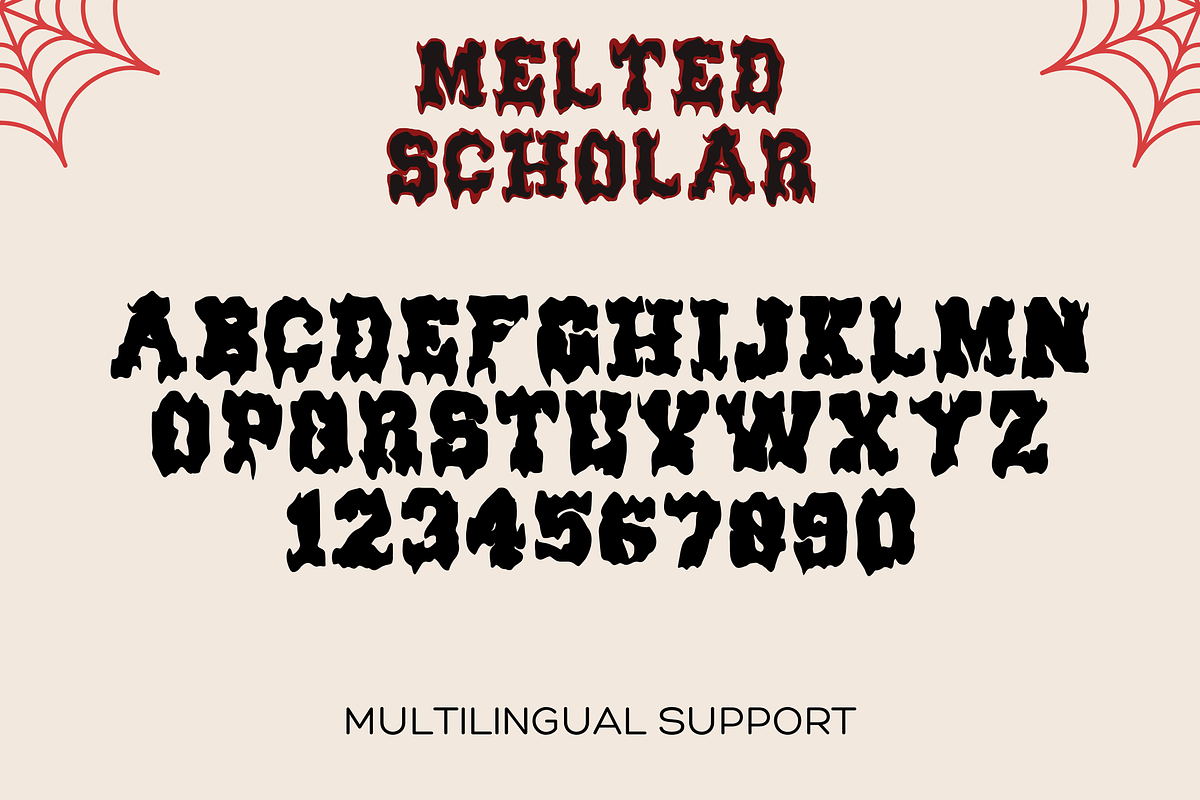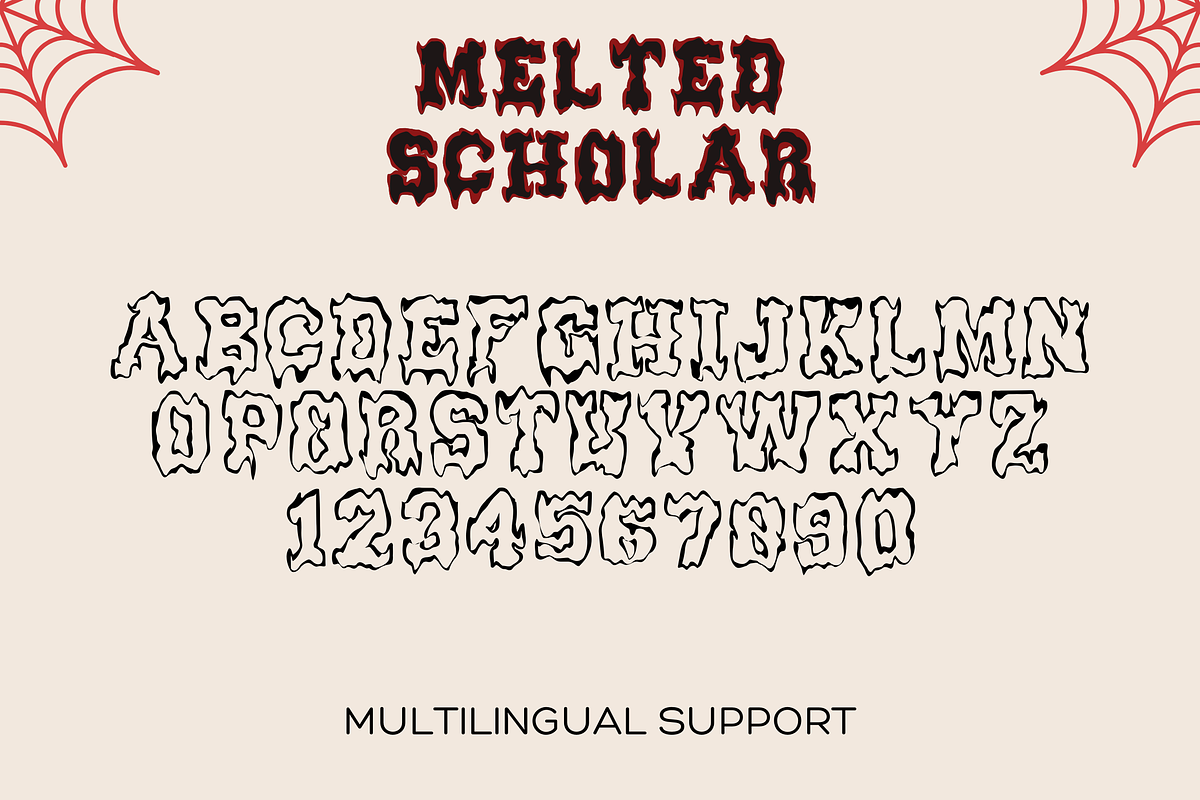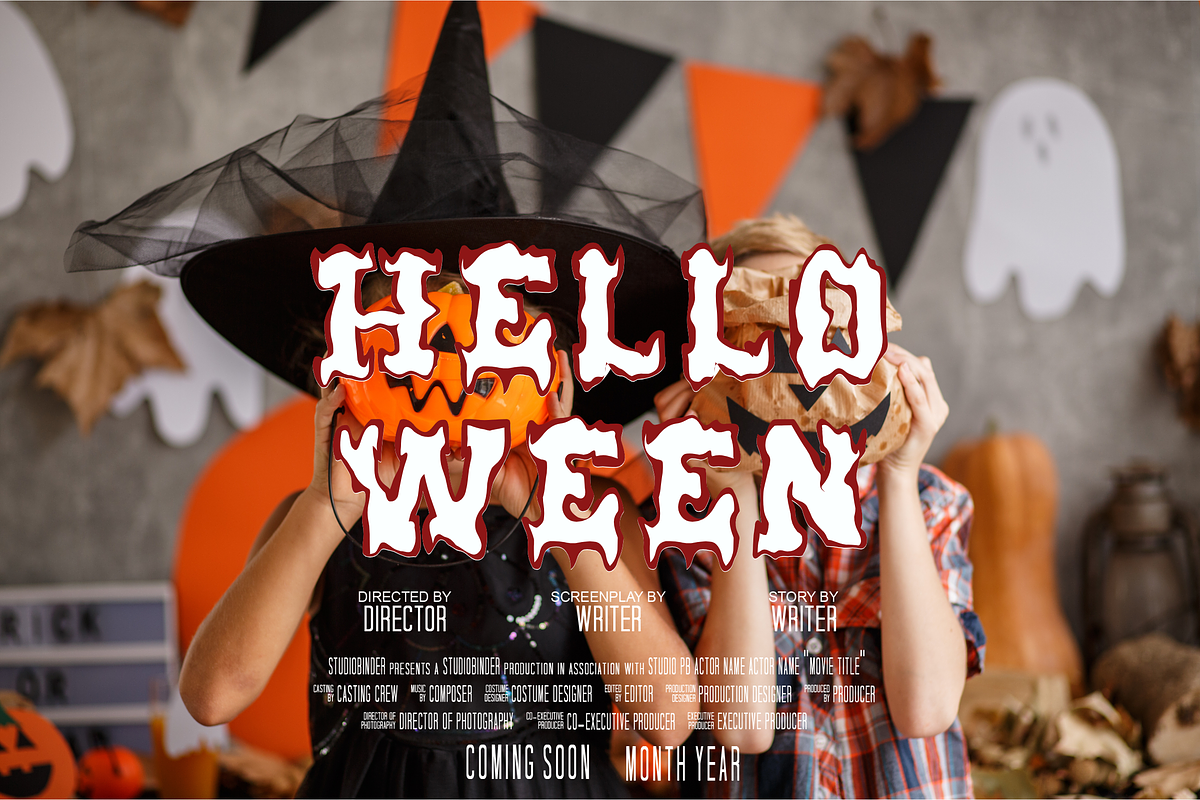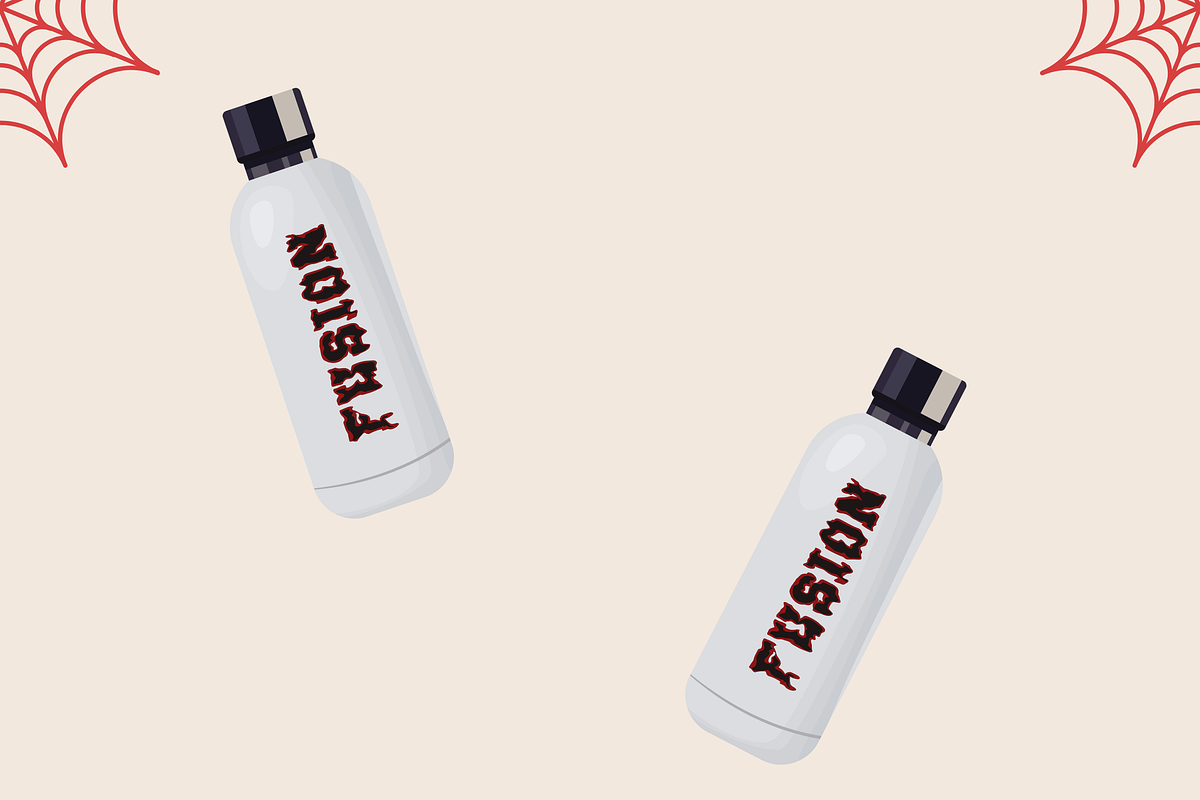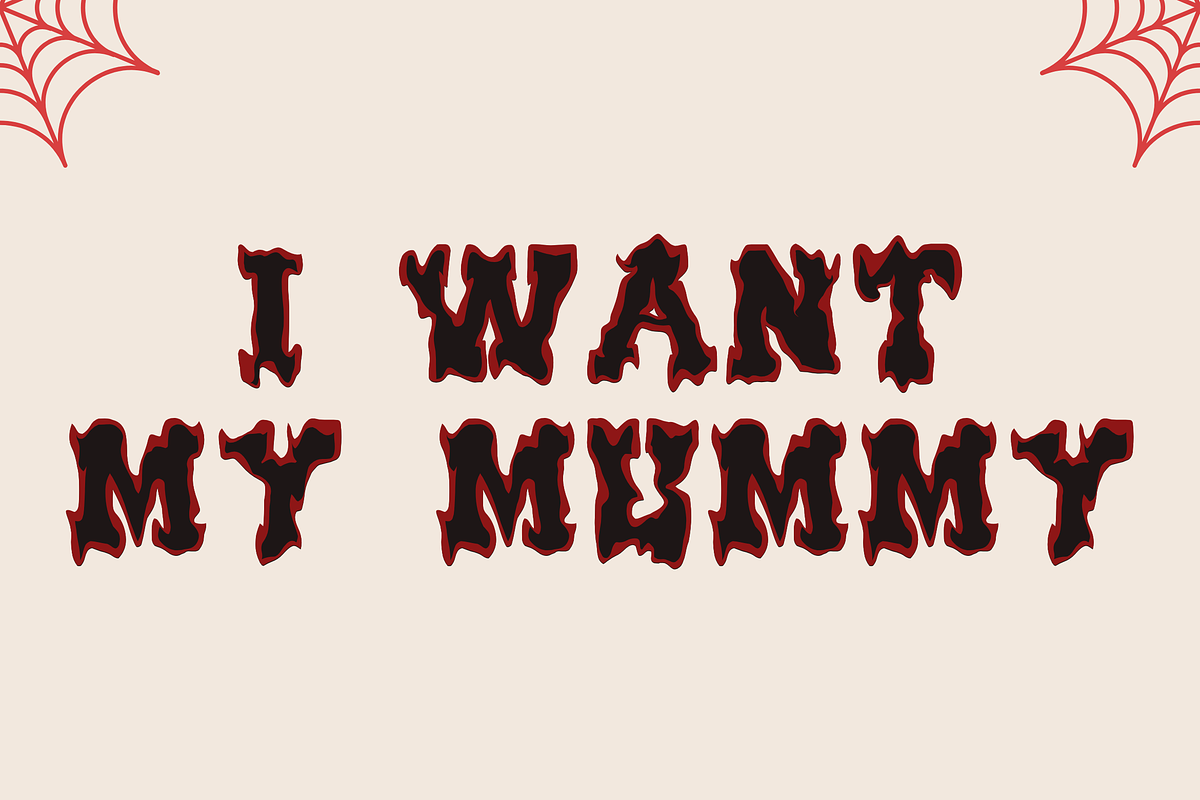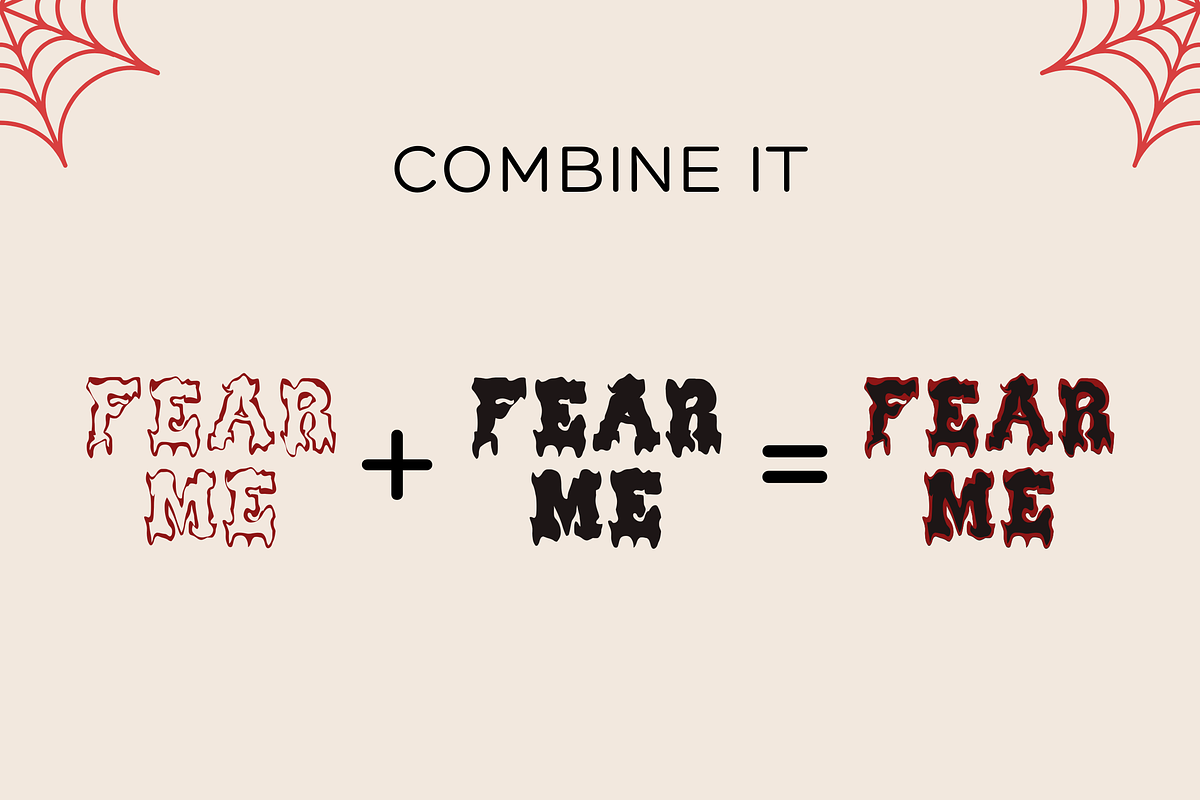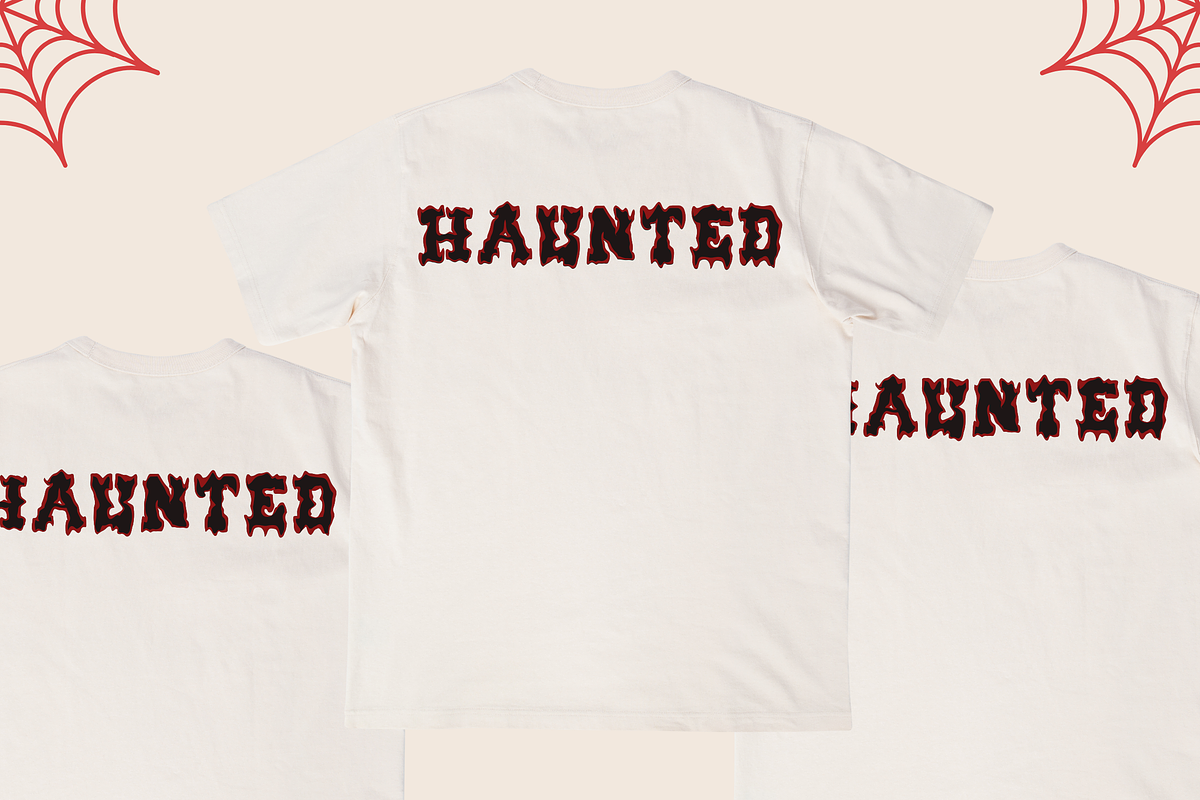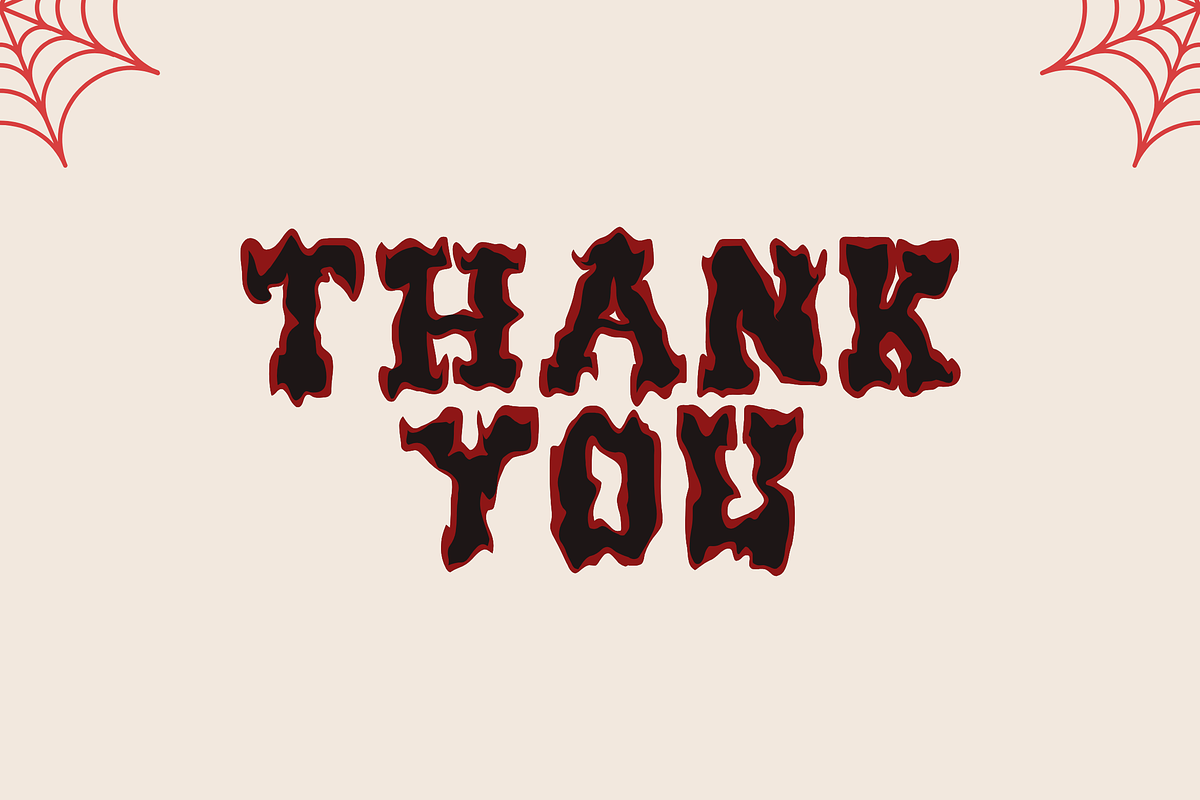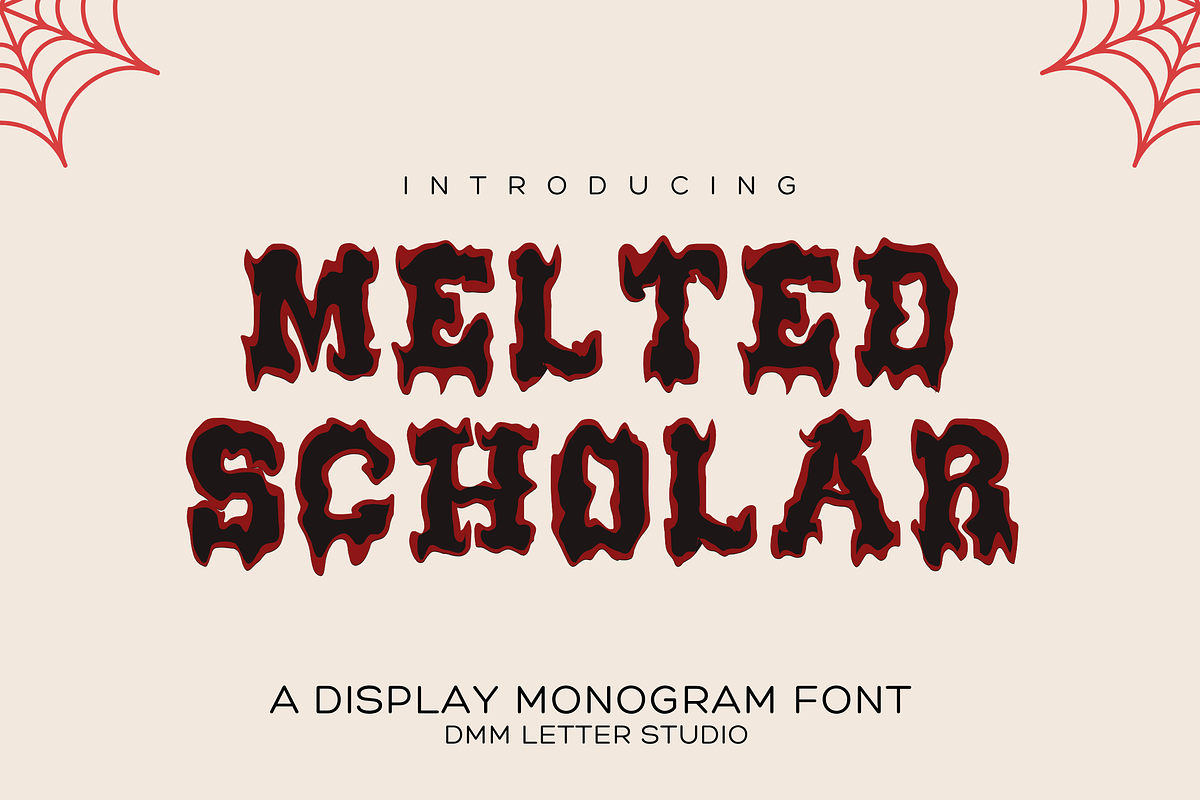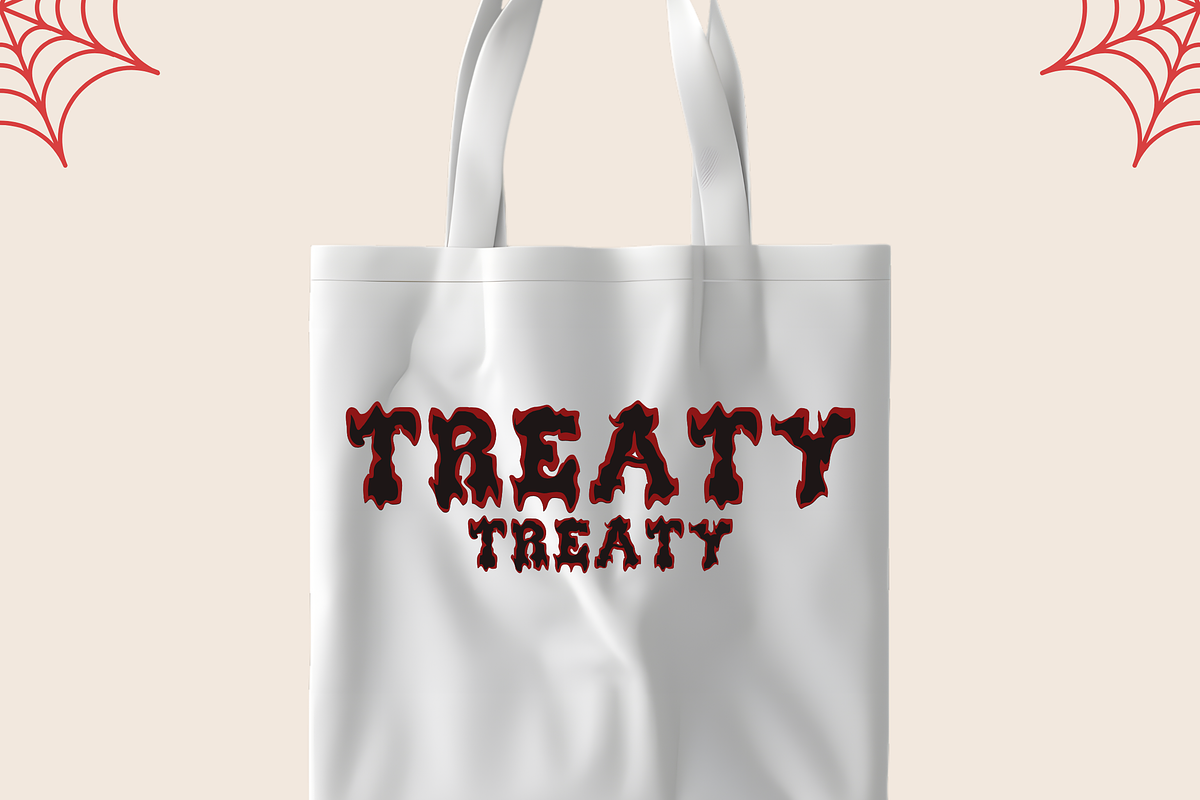
Melted Scholar
Meet Melted Scholar, the Display Font
Melted Scholar is a bold collegiate display font with a dramatic melting twist. It combines strong varsity block structure with dripping edges that feel playful, spooky, and full of character. The foundation stays solid and readable, while the melt details add movement and personality. Use Melted Scholar for Halloween merch, school-themed graphics, stickers, posters, slime concepts, party invites, and bold social content. As a result, your typography feels powerful, fun, and impossible to ignore.
Why Melted Scholar sells
Fast layouts with the Melted Scholar Font
Start with short, bold phrases to highlight the melting edges. After that, pair it with a clean sans serif or simple script for secondary text. Because drip details can feel busy, use solid backgrounds or badge shapes for contrast. In addition, try adding a thin outline or shadow layer to boost readability. Finally, save palettes like slime green and black, orange and charcoal, purple and cream, or red and white for ready-to-sell theme sets.
Creative uses and quick wins
- Halloween shirts and spooky campus merch
- Slime-themed stickers and decals
- Party posters and event flyers
- School club graphics and bold team slogans
Design tips for Melted Scholar
Use Melted Scholar for headlines and avoid shrinking it too small. The drip effect needs space to stay crisp. Also, keep supporting fonts simple for balance. For print, export at 300 DPI and test a small proof for apparel or stickers. For digital, scale slightly larger so the melting edges remain sharp on mobile screens.